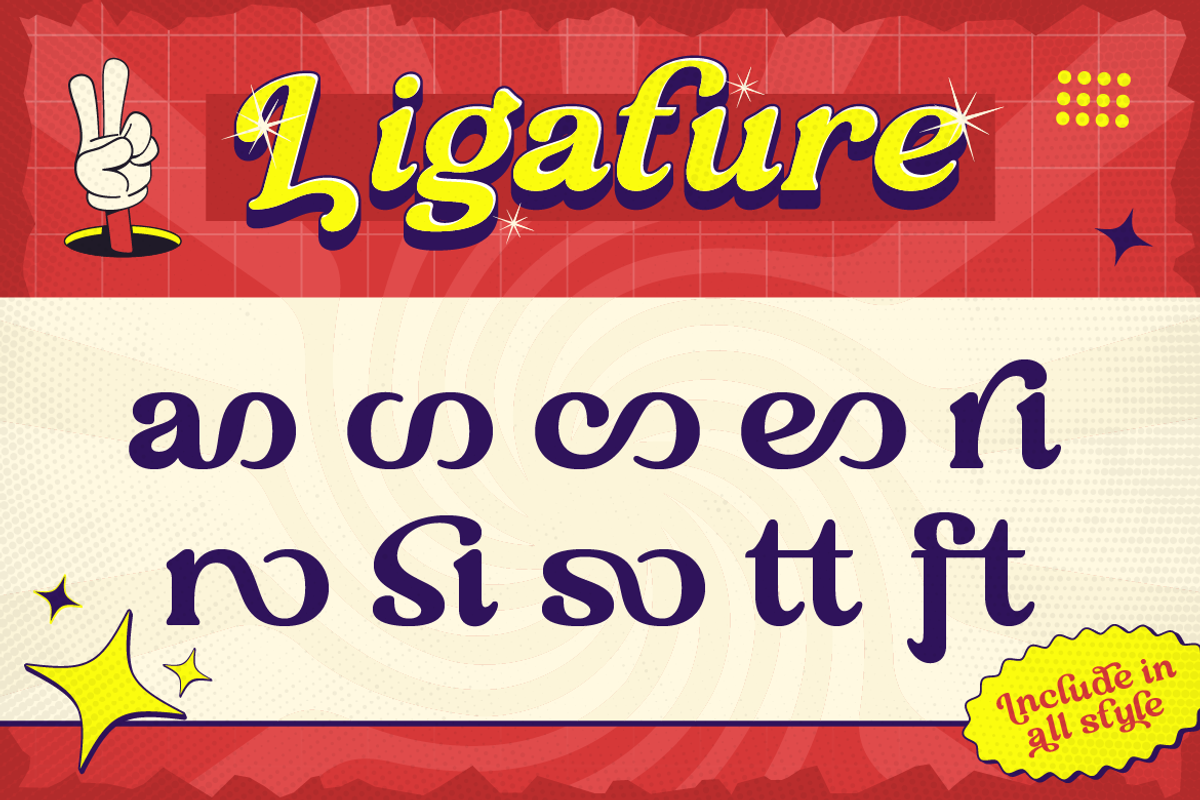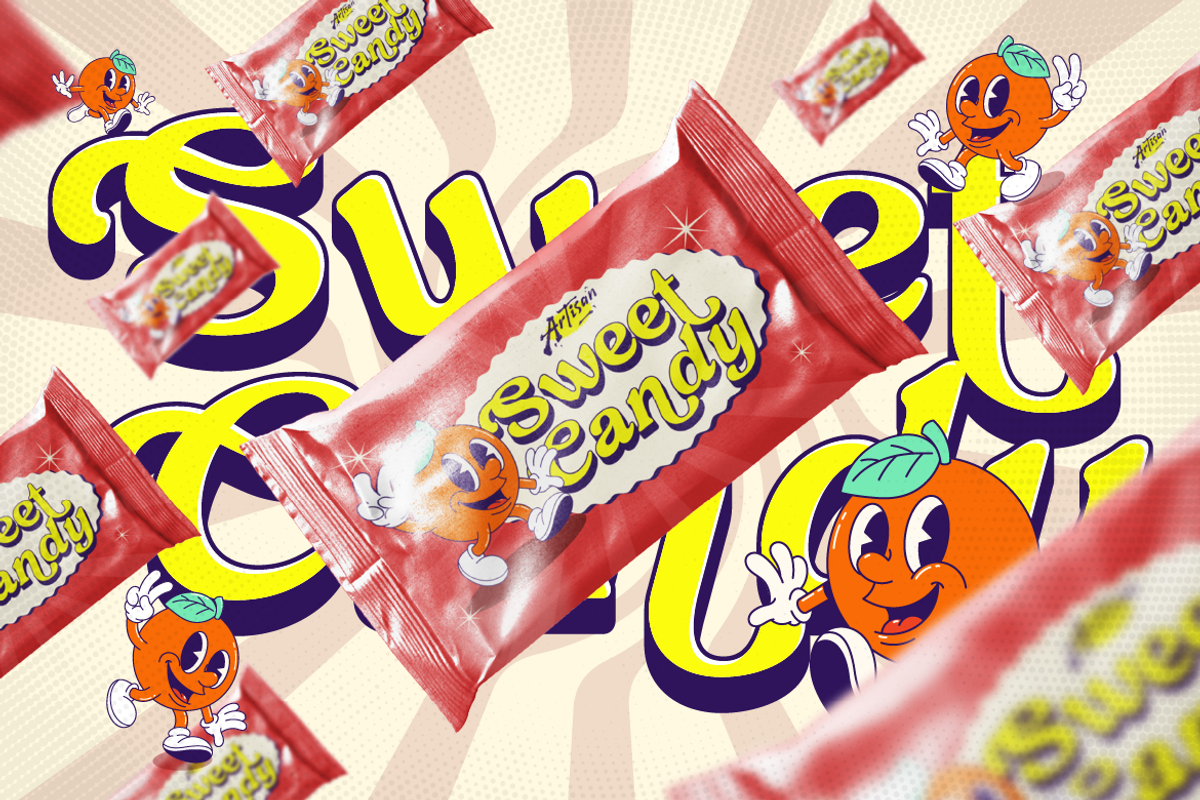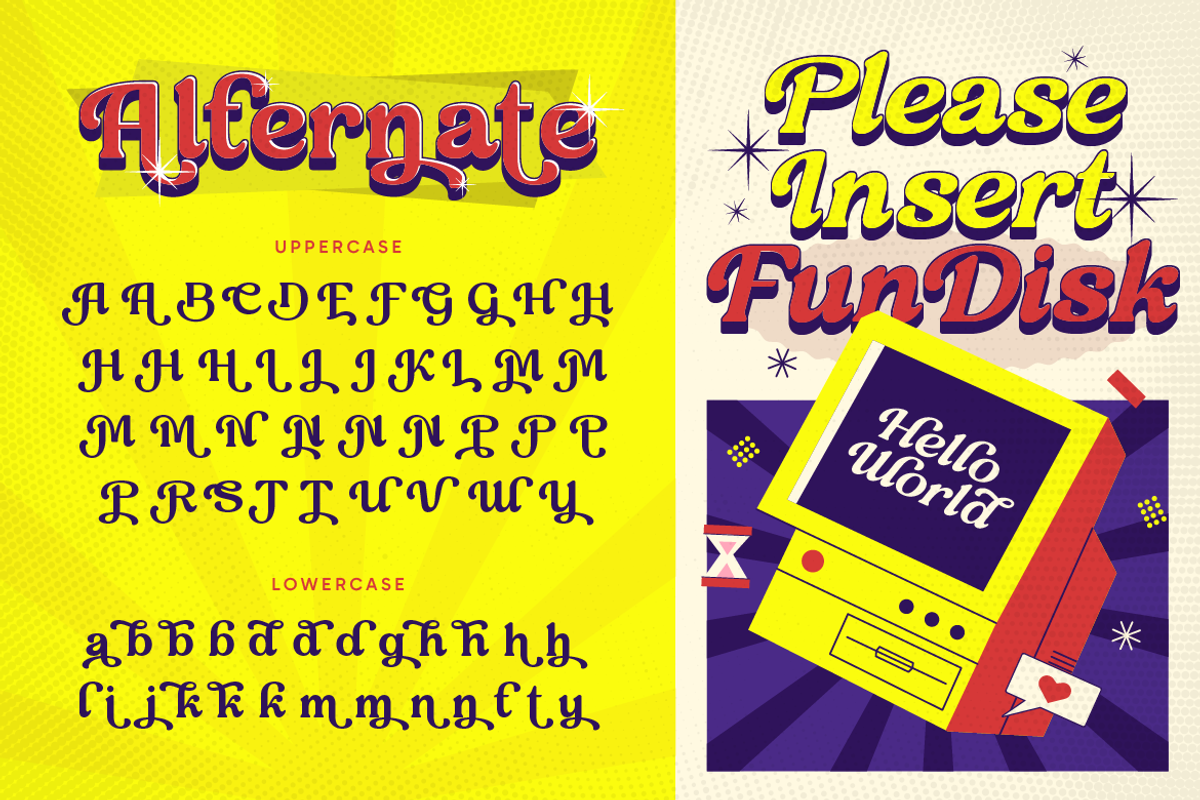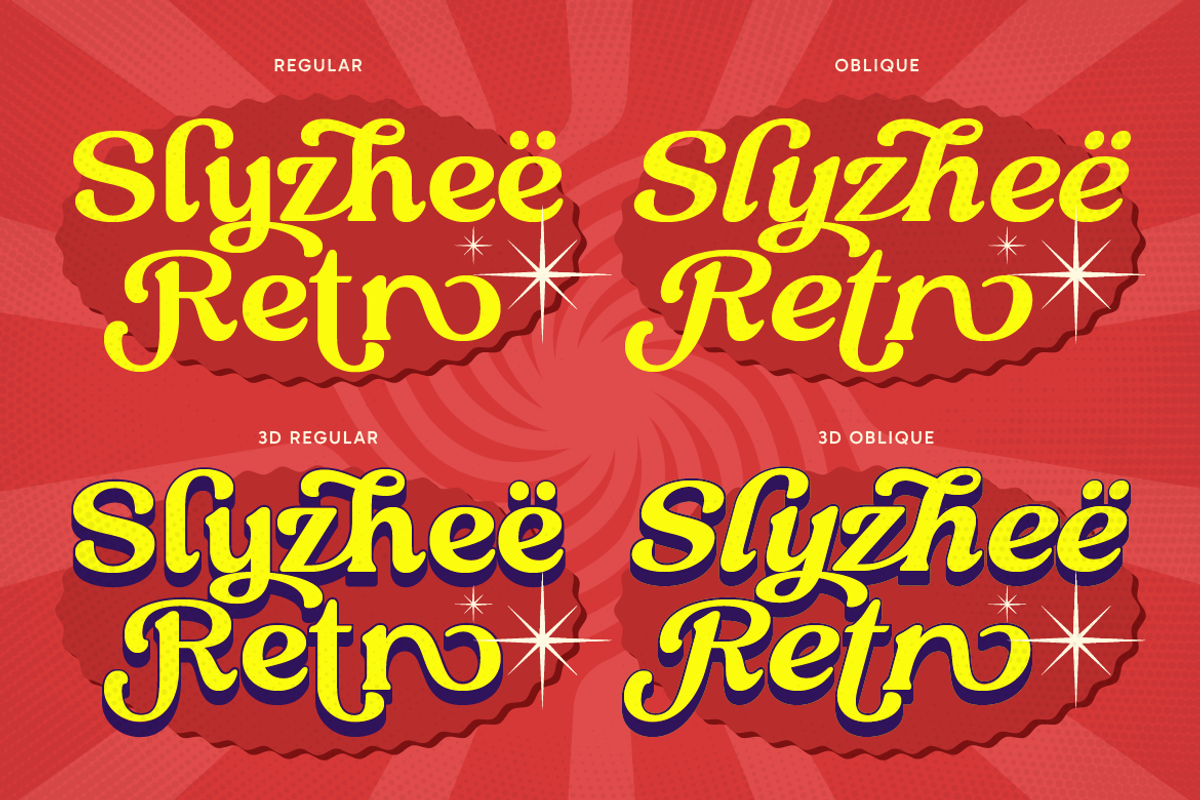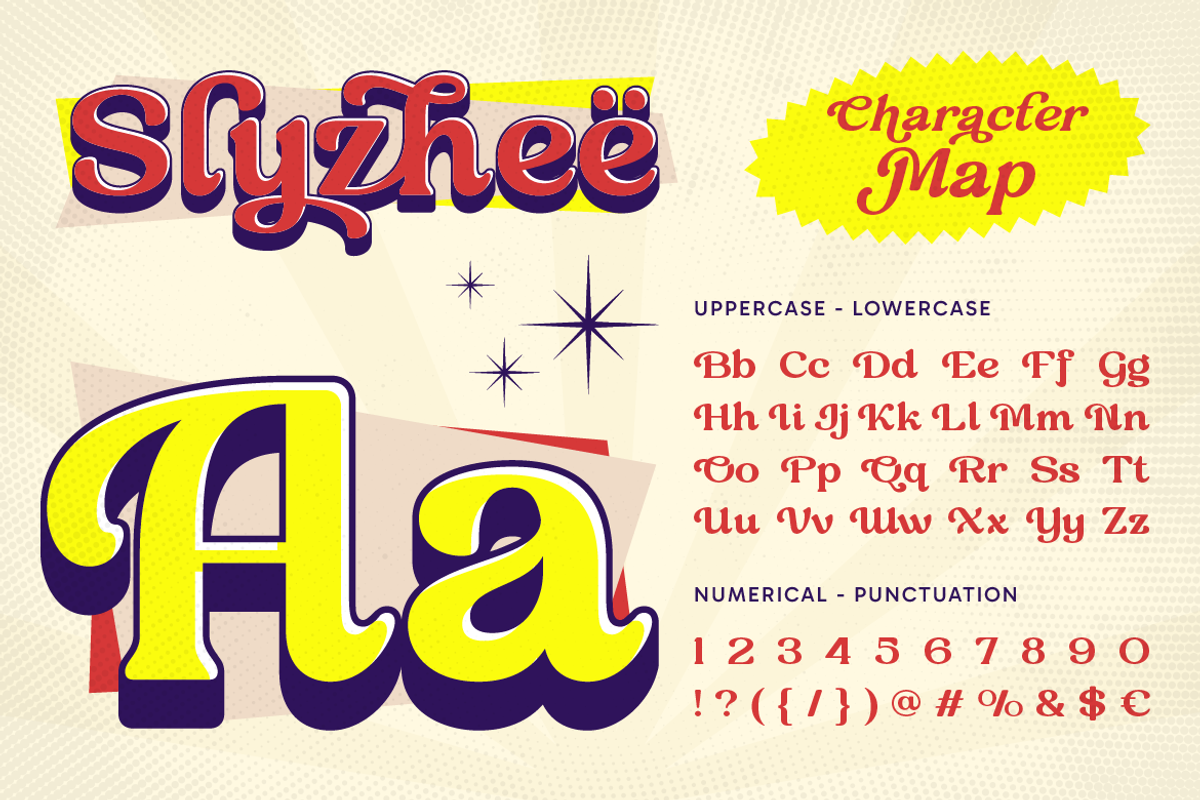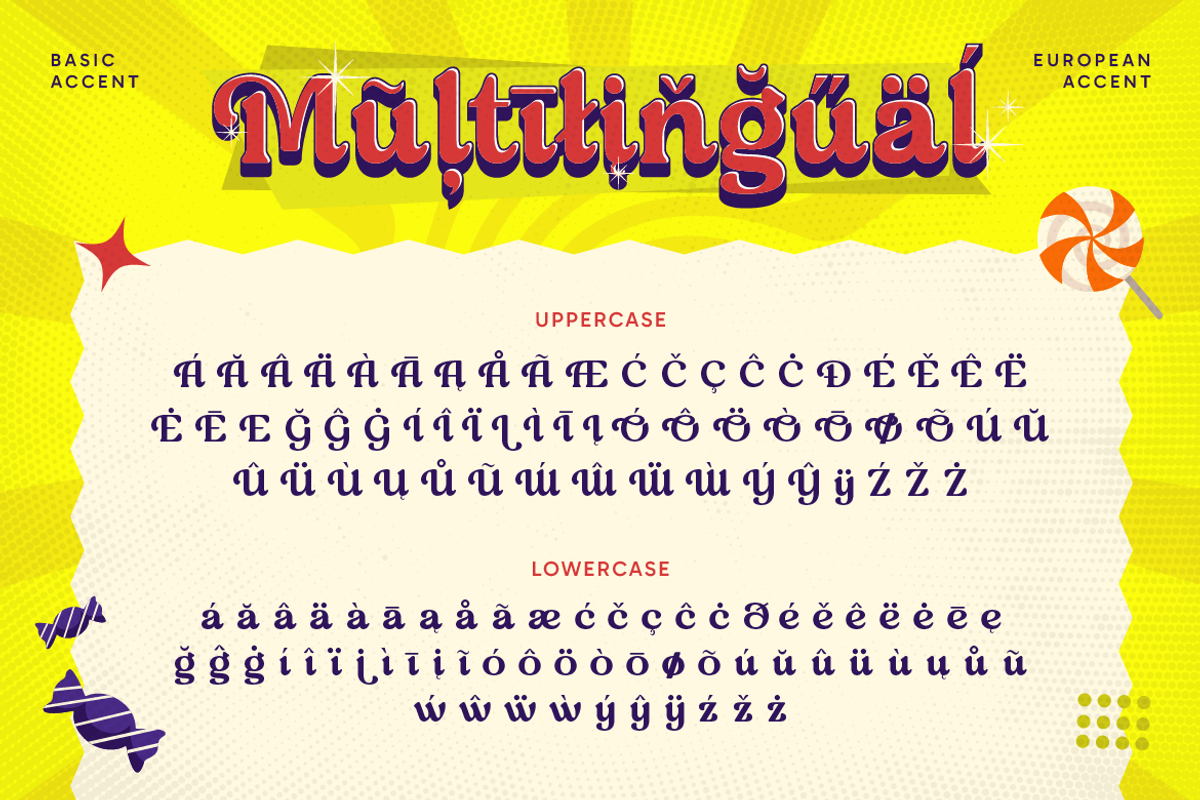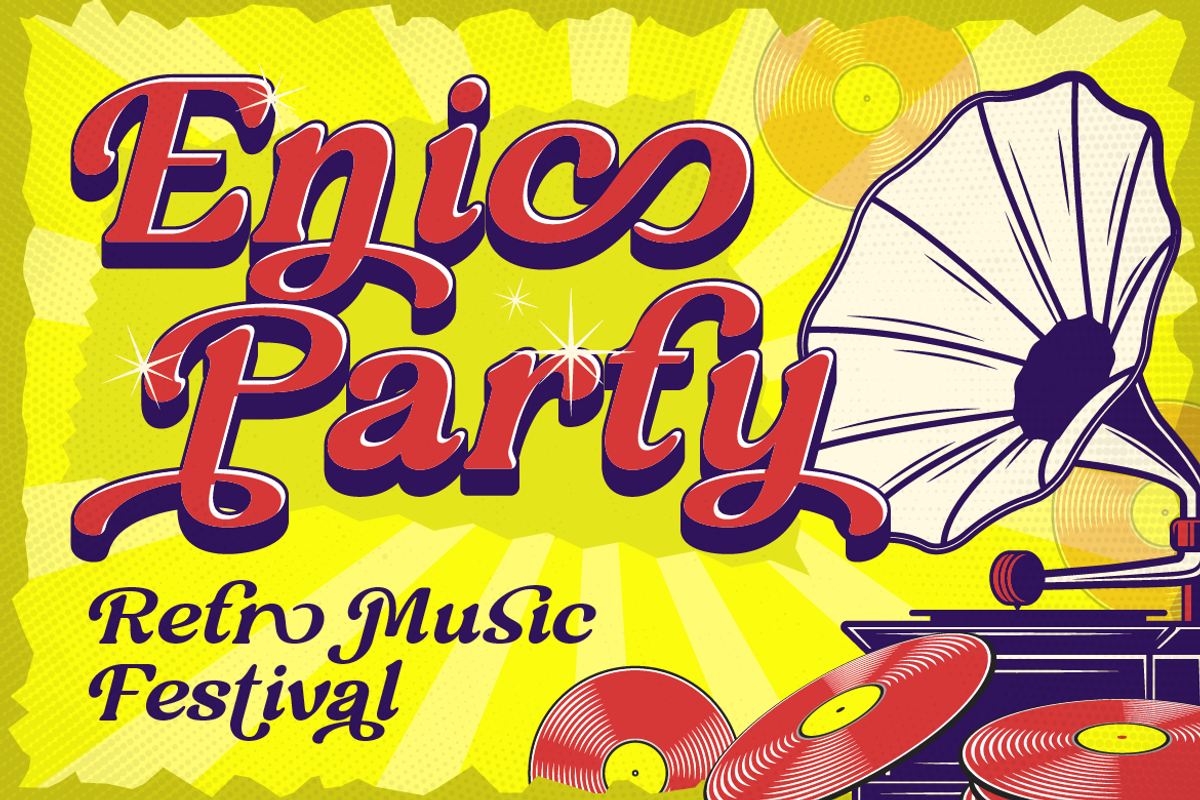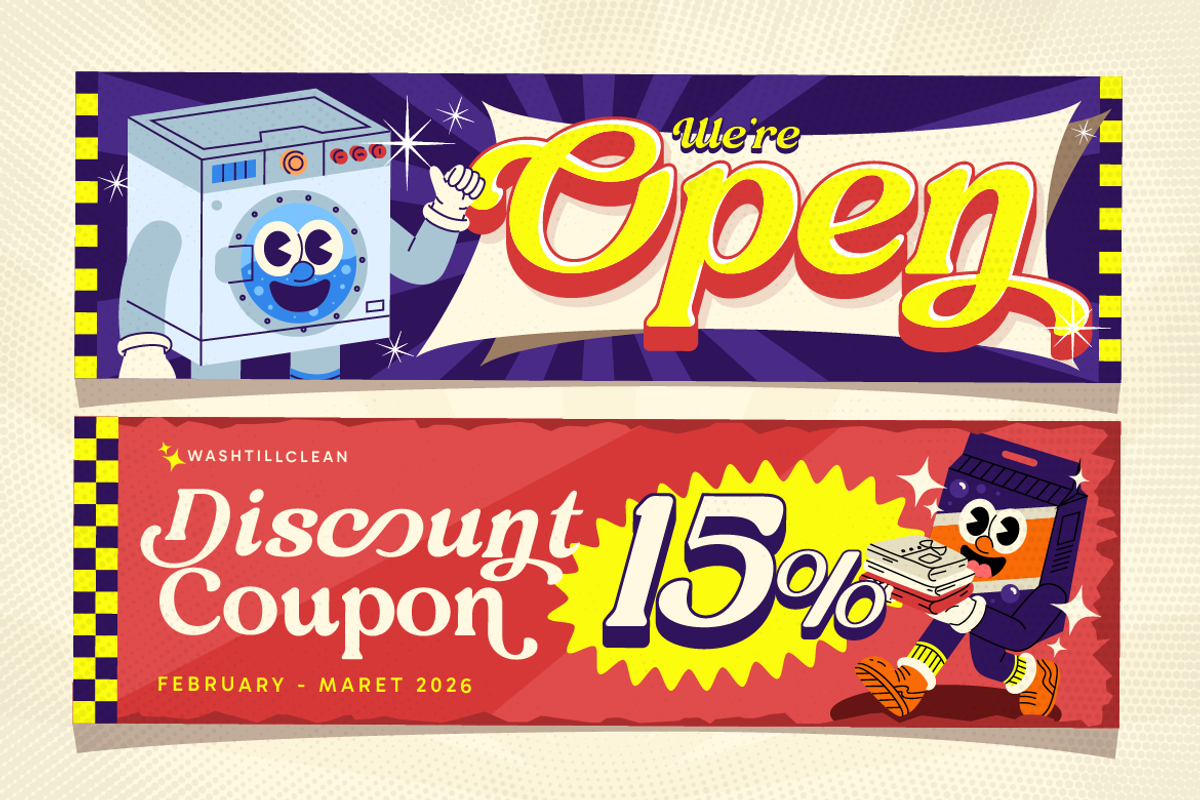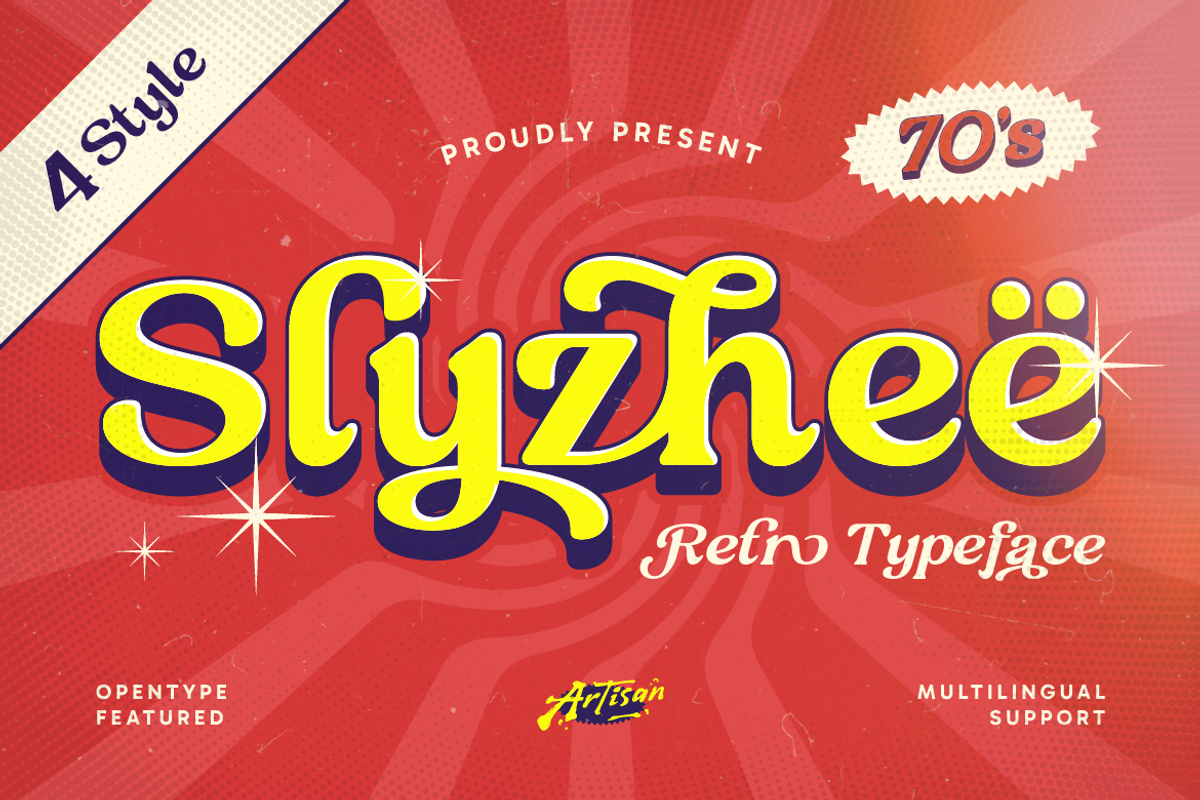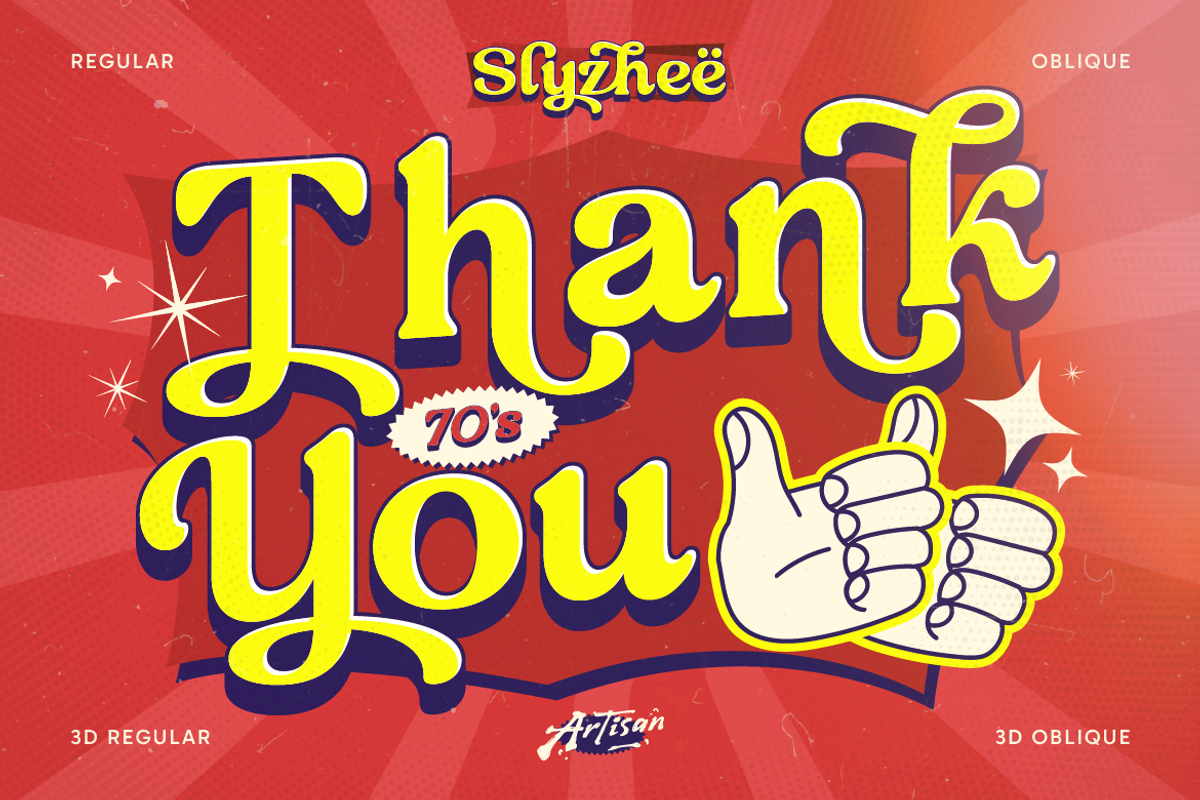
Slyzheë - Retro Typeface
Slyzheë is a bold retro typeface inspired by classic 70’s lettering style. It features playful curves, thick strokes, and eye-catching shapes that instantly bring a vintage and groovy vibe. This font comes with 4 styles, giving you flexibility to create unique looks from flat retro designs to bold 3D effects. Slyzheë is perfect for posters, logos, packaging, branding, album covers, and retro-themed designs.